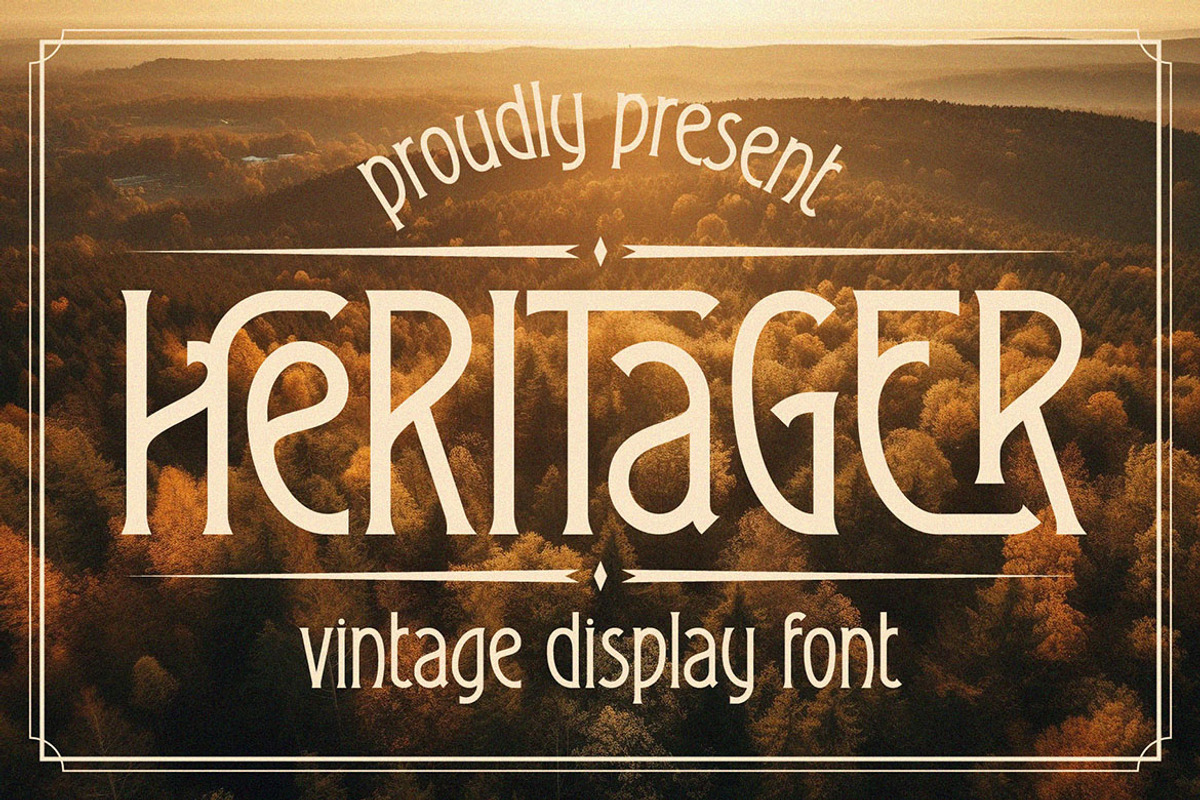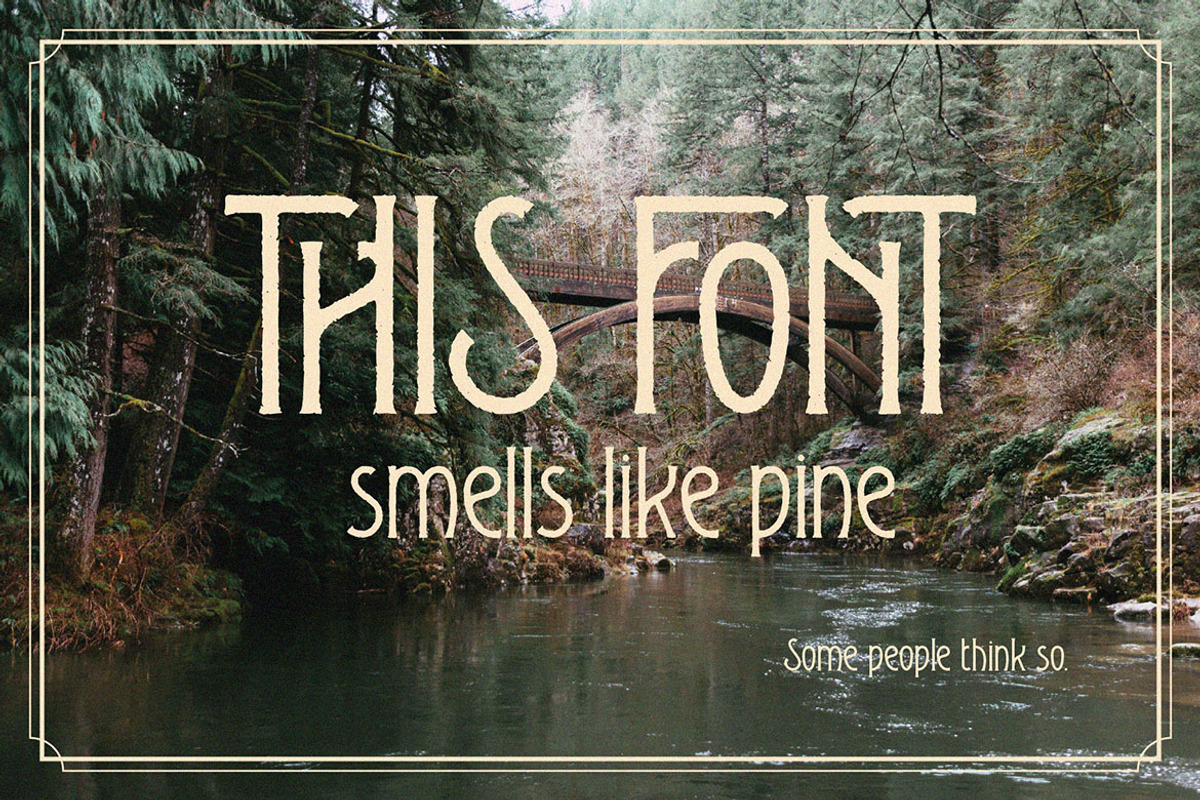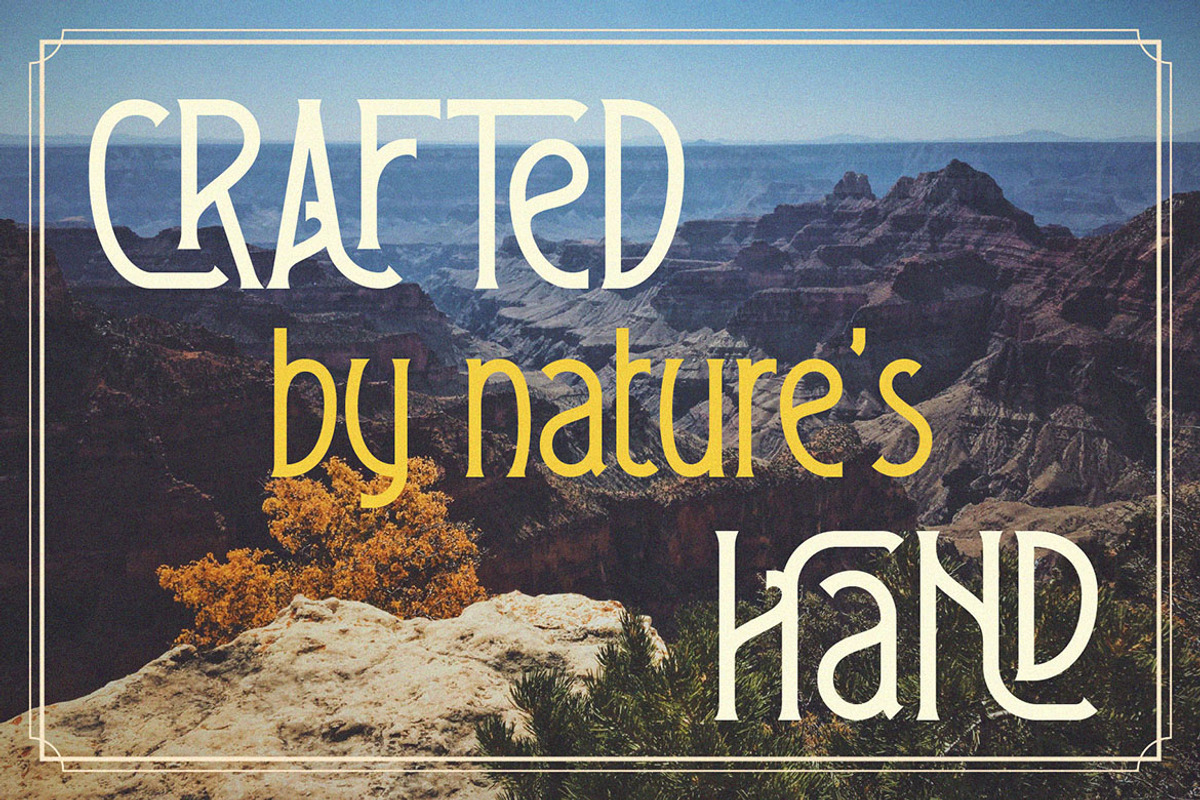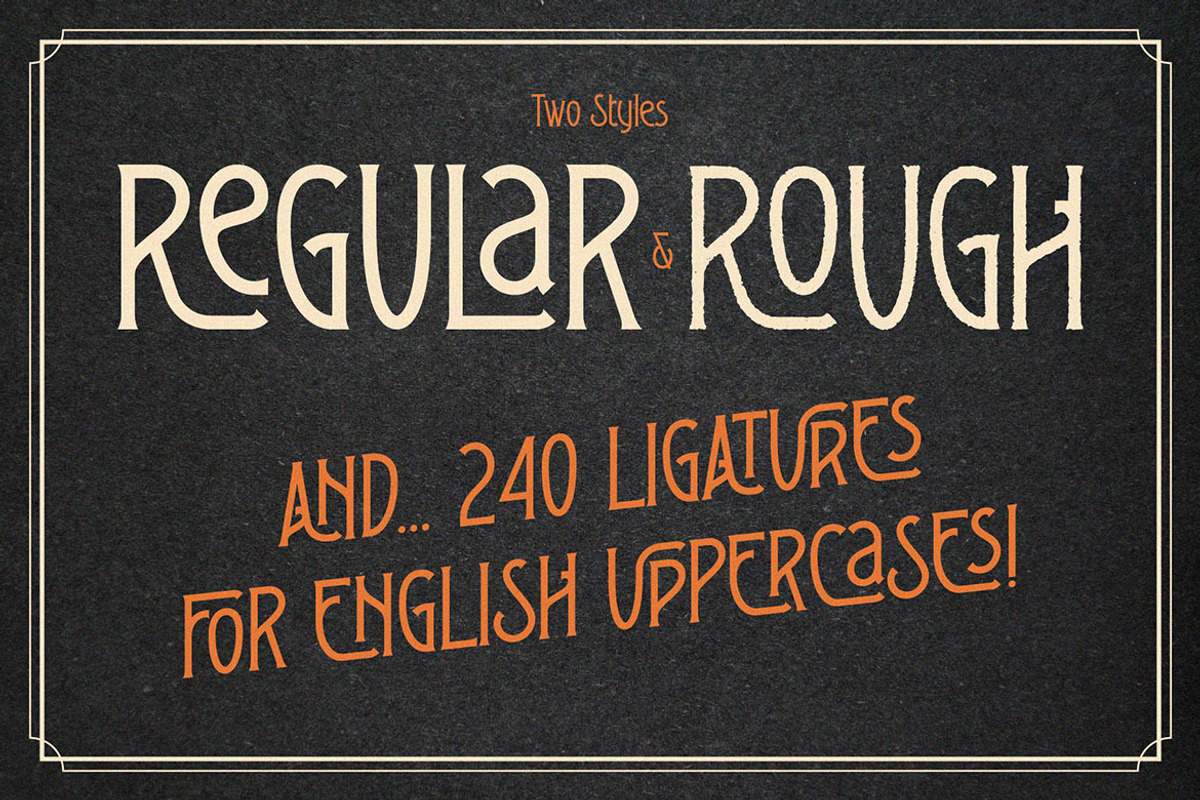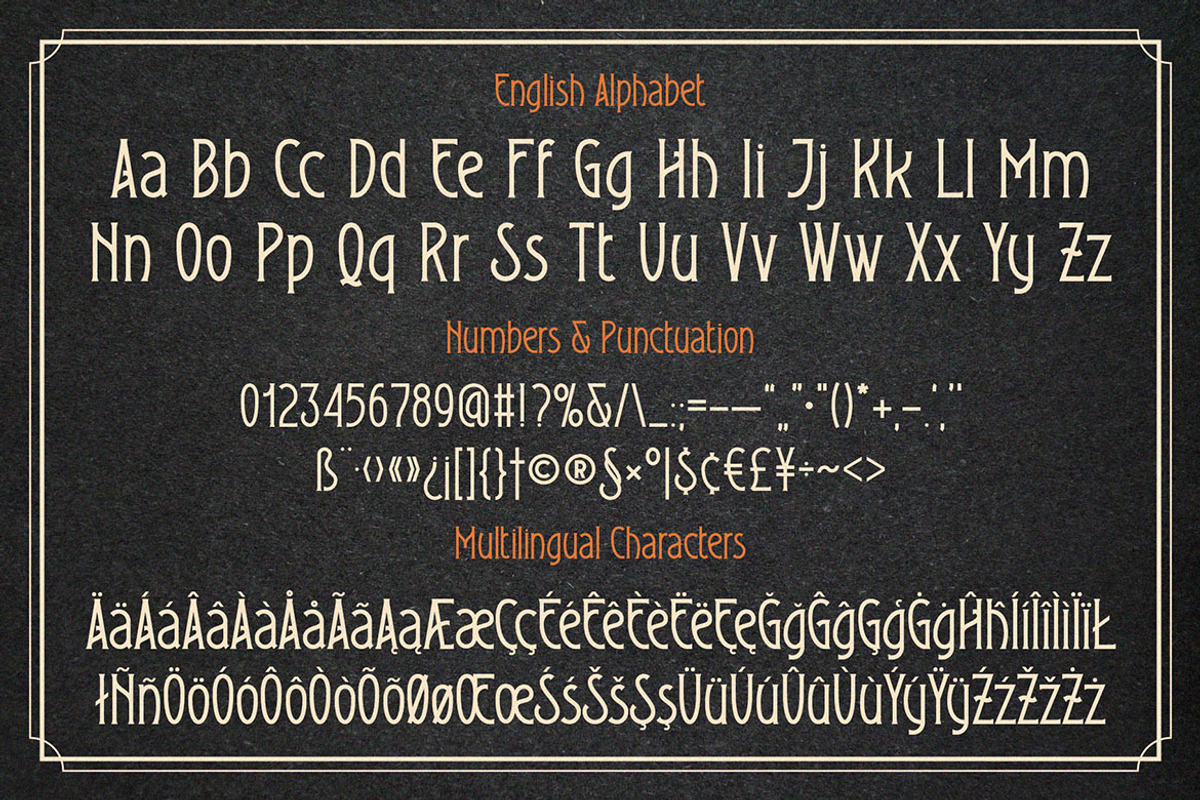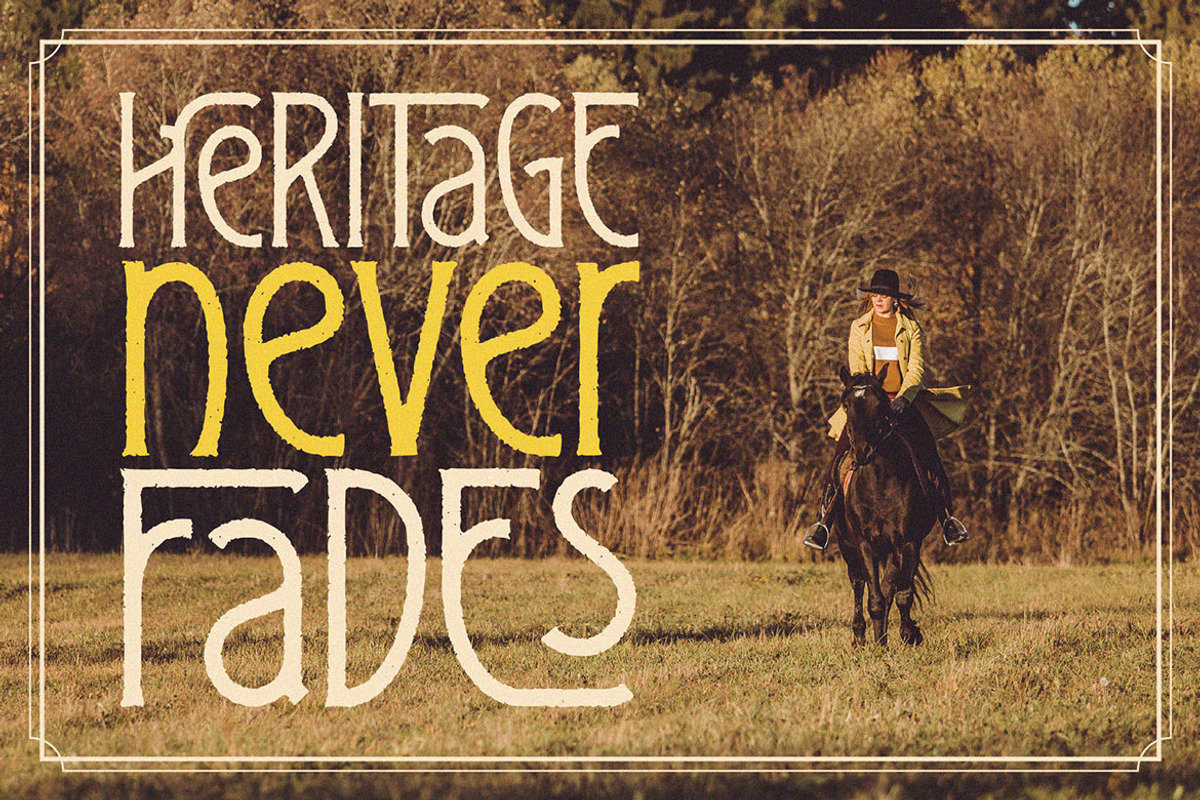
Heritager ArtDeco Ligature Font
Unique, vintage, textured, simple, retro & art deco style serif font. Comes with multilingual support & lot of ligatures (240) + regular & rough font versions - great for your new logo, monogram or branding project.
- 2 font versions - regular & rough
- Multilingual support & lot of ligatures (240)
- Great for your new logo, monogram or branding project